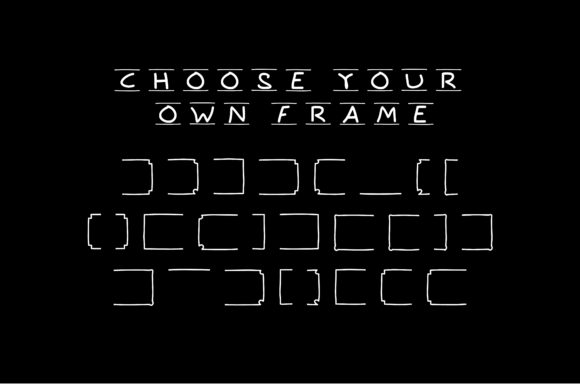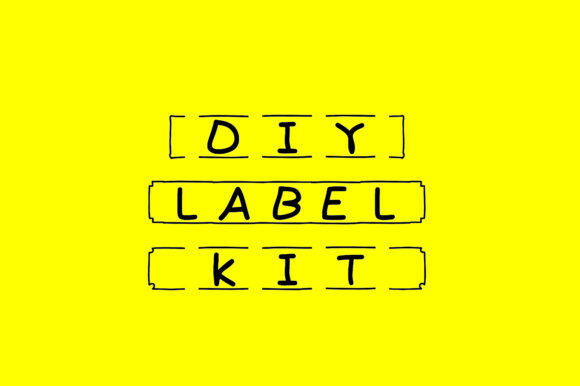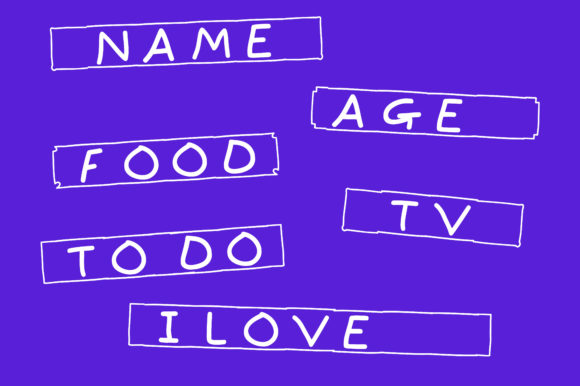
About Label Kit Font
If you’re looking for a quick and convenient way to create labels that have a personal touch, the Label Maker font is perfect for you! With its five different frame styles and customizable text, you can effortlessly create labels that look like they were handcrafted. Here’s how you can use Label Maker to create your own labels:
1. Choose a Frame Style: Label Maker offers five different frame styles to choose from. Each style has its own unique design, so select the one that best suits your taste or matches the aesthetic you’re aiming for. Take a moment to preview each style and decide which one will complement your label design.
2. Write Your Message: Once you’ve selected a frame style, it’s time to add your message. Type in the text you want to appear on your label. It could be the name of an item, a description, or any other relevant information. Play around with different fonts, sizes, and alignments to find the perfect look for your label.
3. Customize the Label: Label Maker allows you to customize various aspects of your label. Adjust the size of the text to ensure it fits within the frame nicely. You can also experiment with different colors to make your label more eye-catching and visually appealing. Consider using contrasting colors or matching the label’s color scheme to the item it will be attached to.
Label Maker is designed to make label creation quick and easy while still giving your labels a personalized touch. It’s a great tool for organizing various items, creating custom tags, or adding a decorative element to your belongings. Enjoy the convenience of this font and the satisfaction of having your labels look like they were meticulously handcrafted.